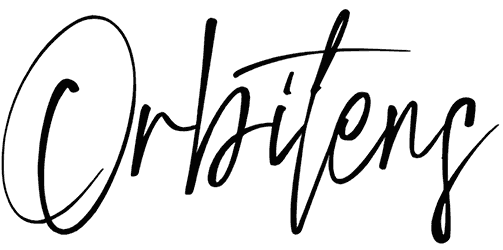
The Orbitens is a well-designed handwritten font that has a classy form. This font is also placed in the signature font categories and is an excellent choice to use in various situations, such as book or magazine covers, brochures, and commercial packaging.
The Orbitens font has thin letters and soft edges that make this font seem fancy and memorable. Thus, it helps your content go above, even though it does not support numbers and symbols.